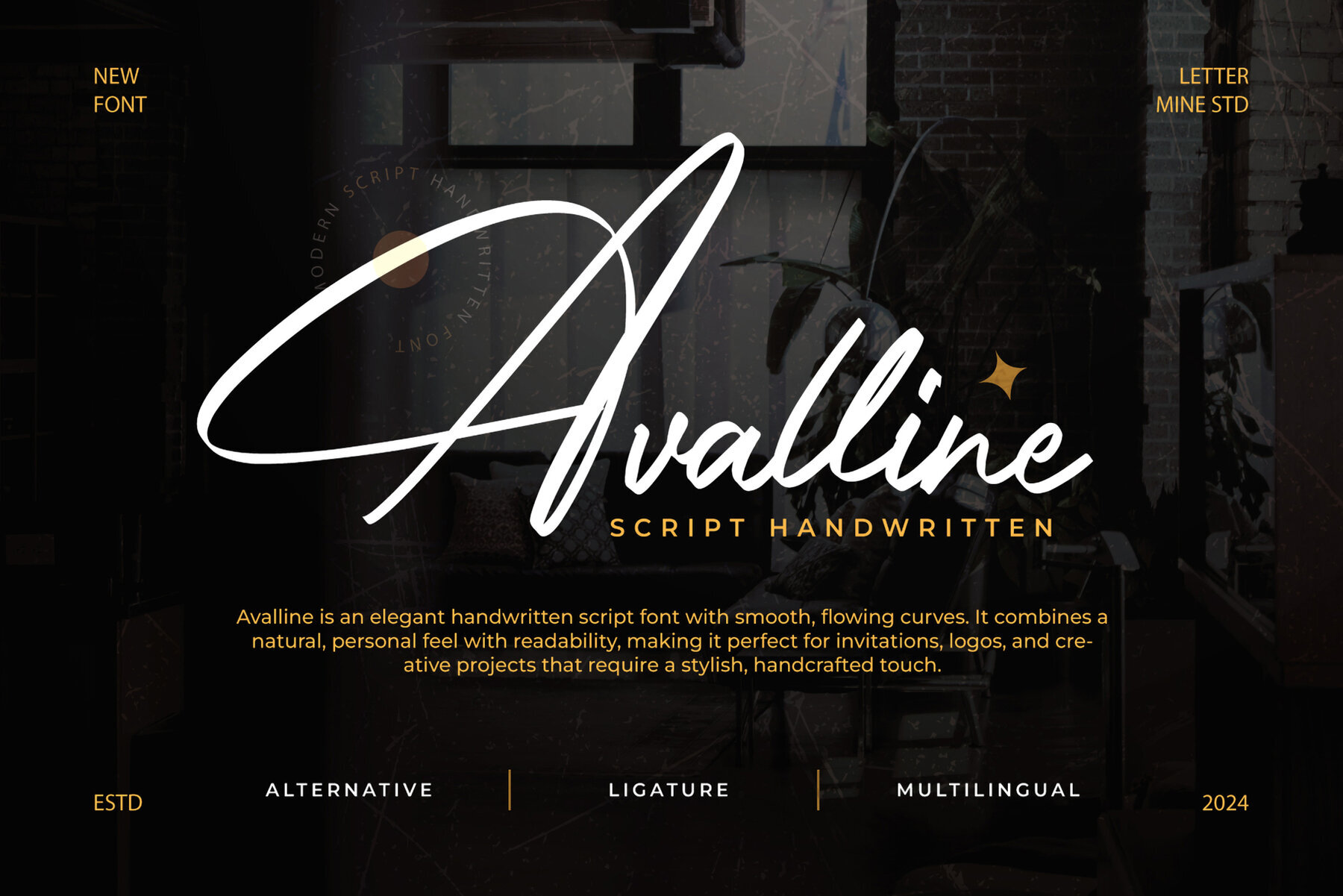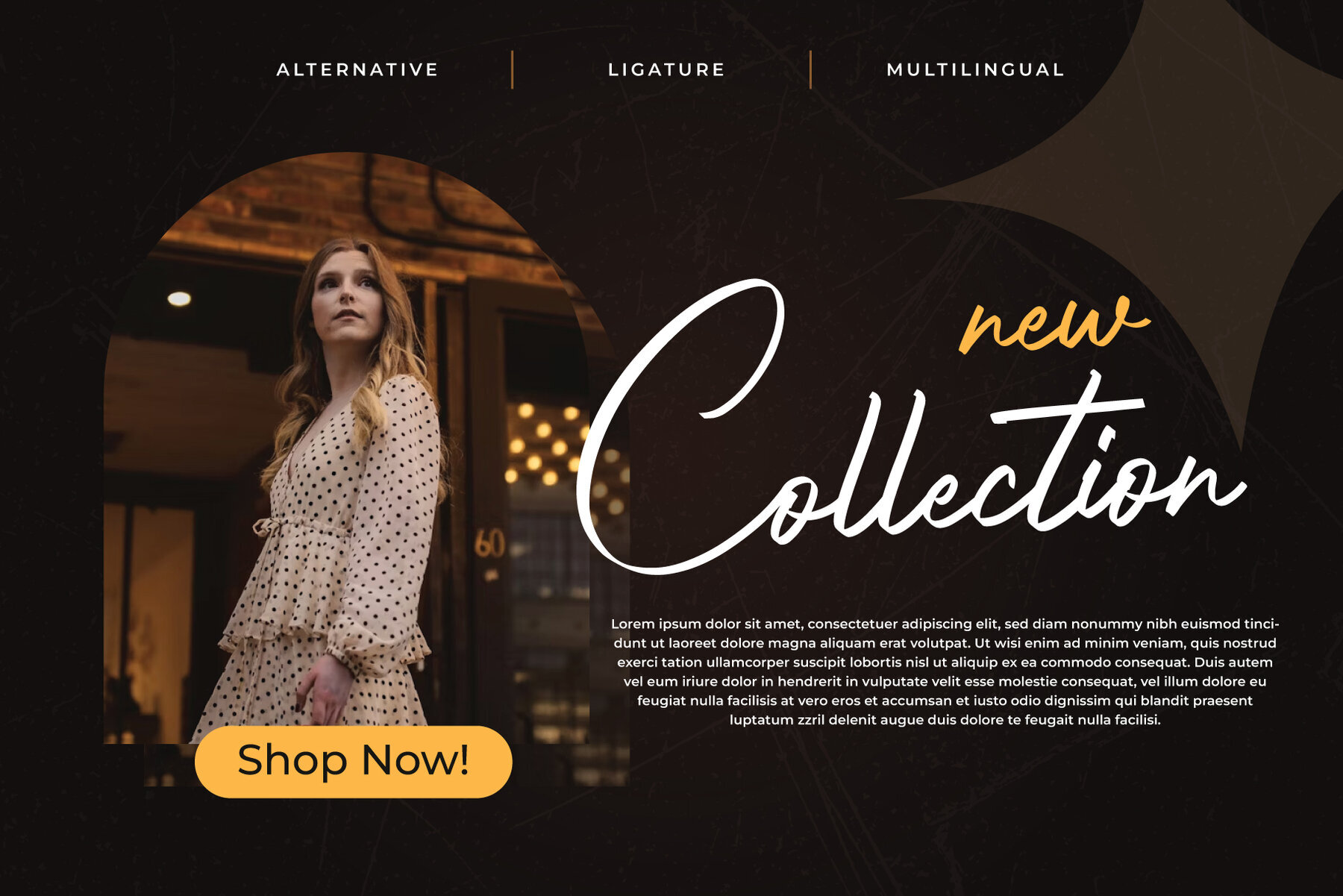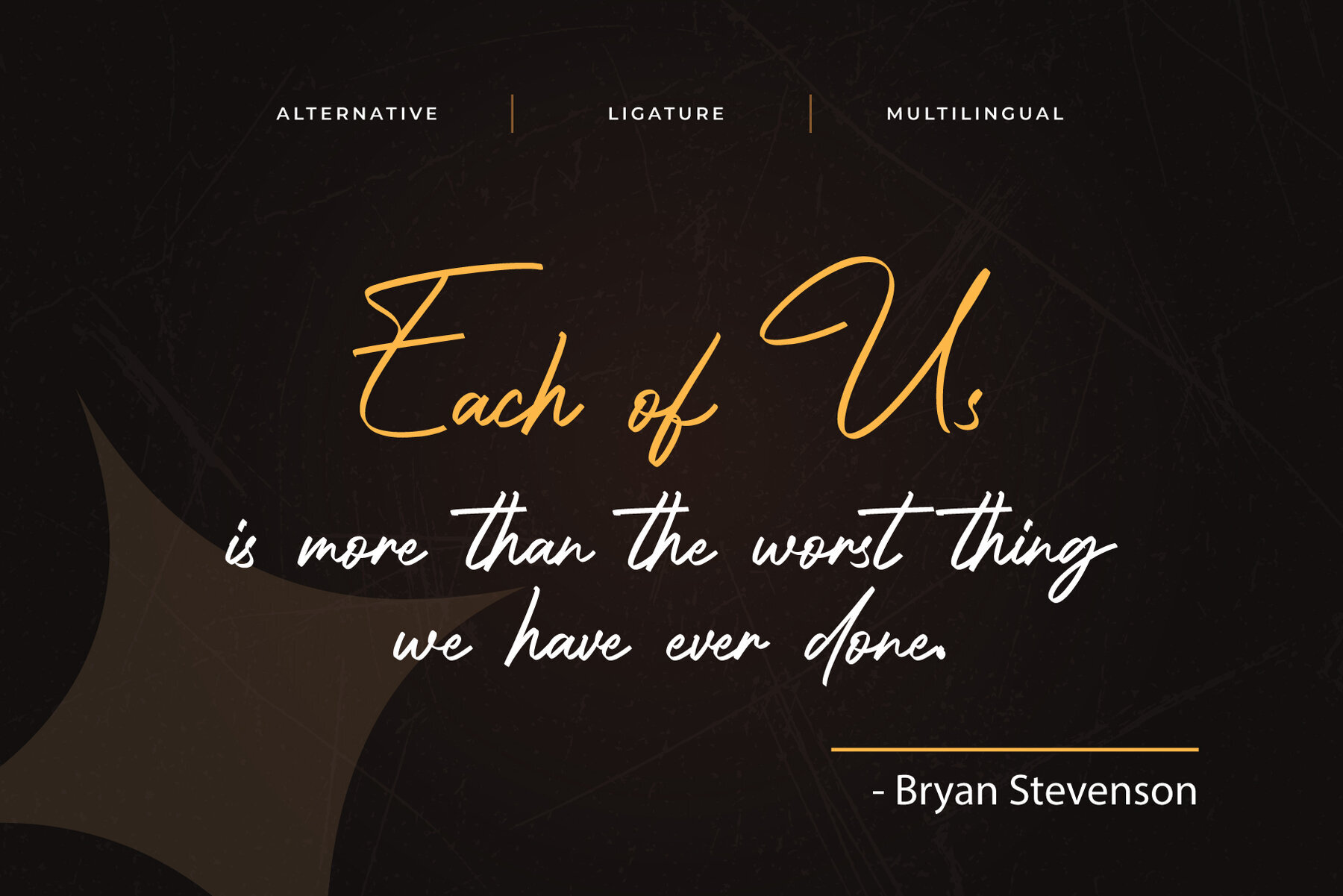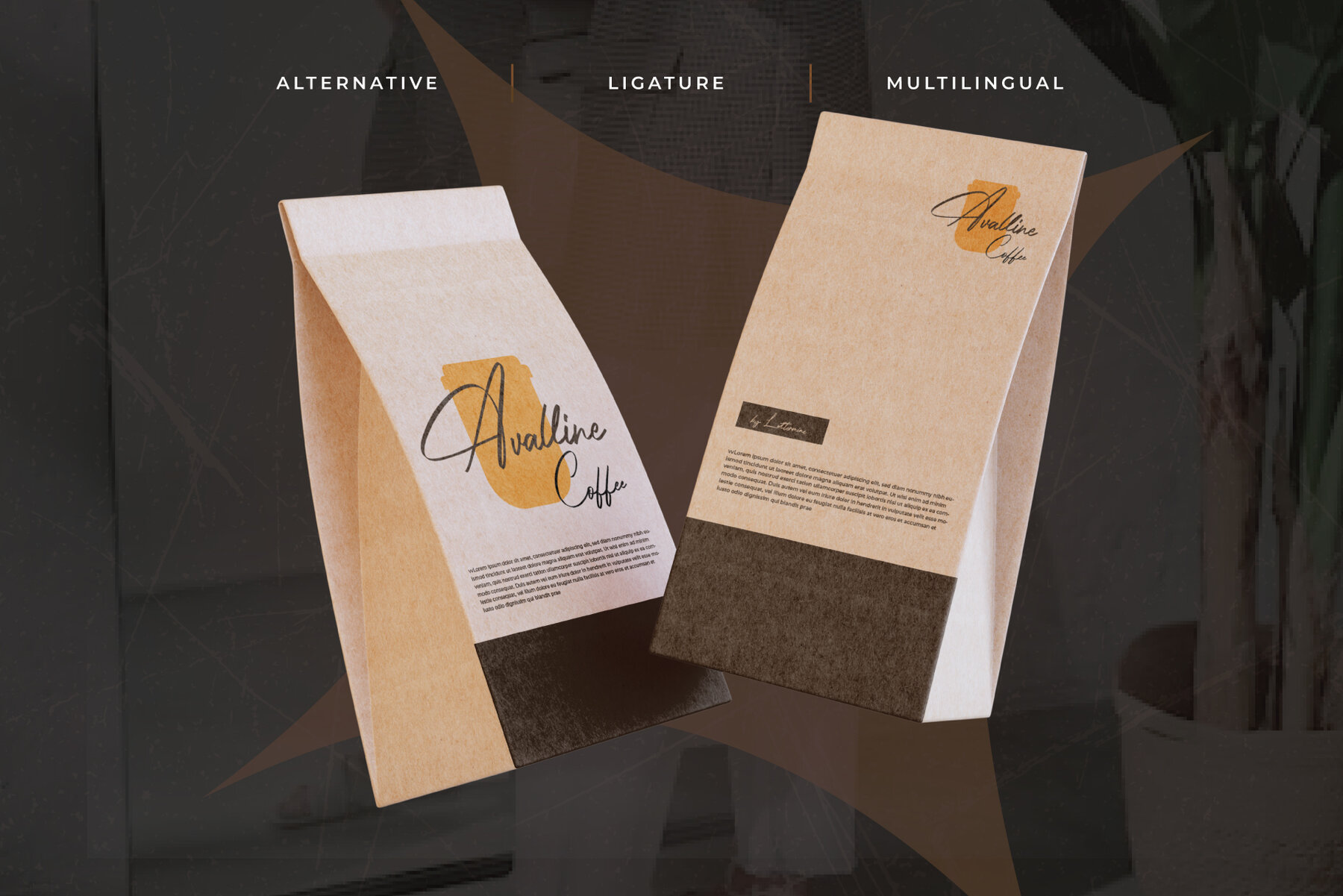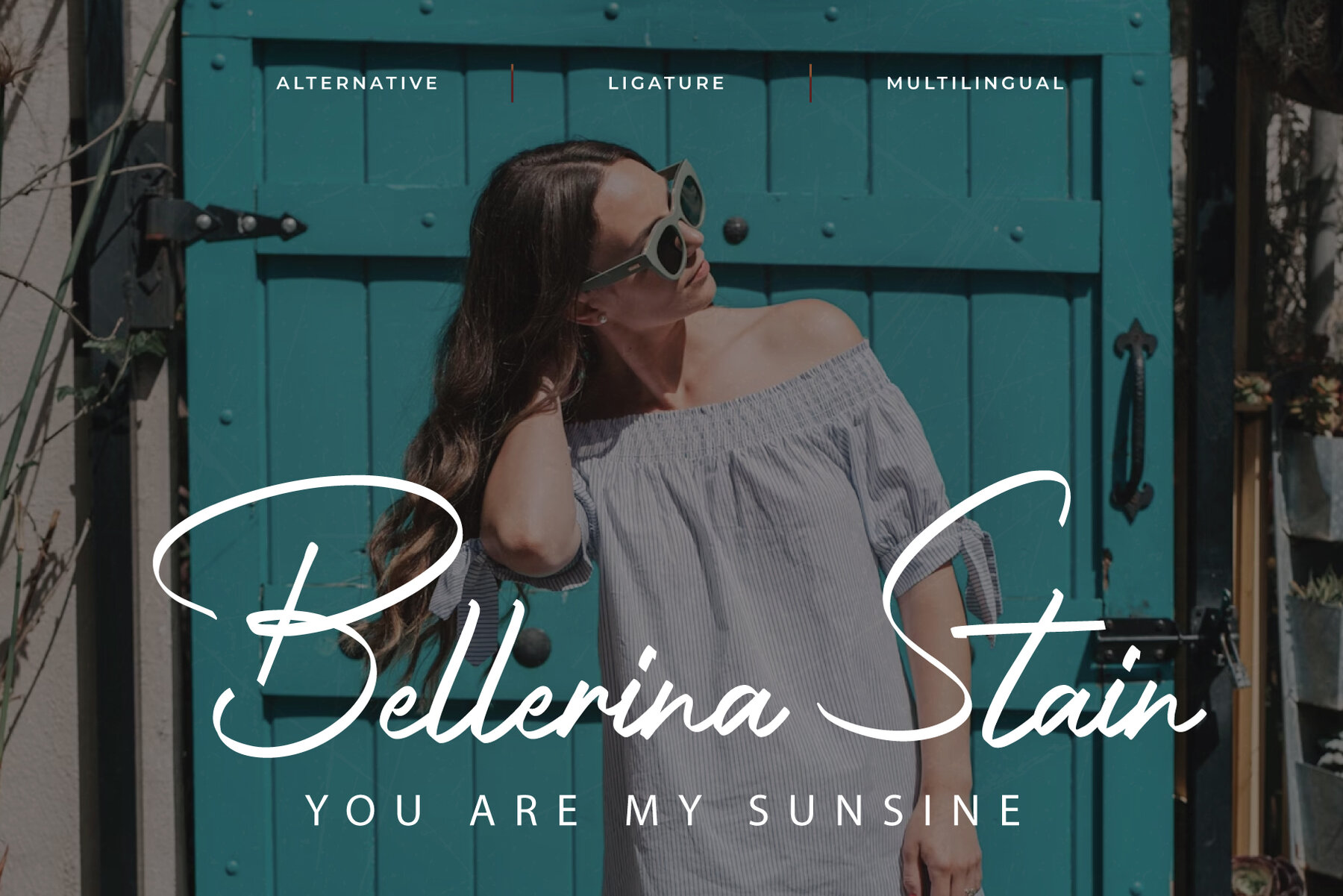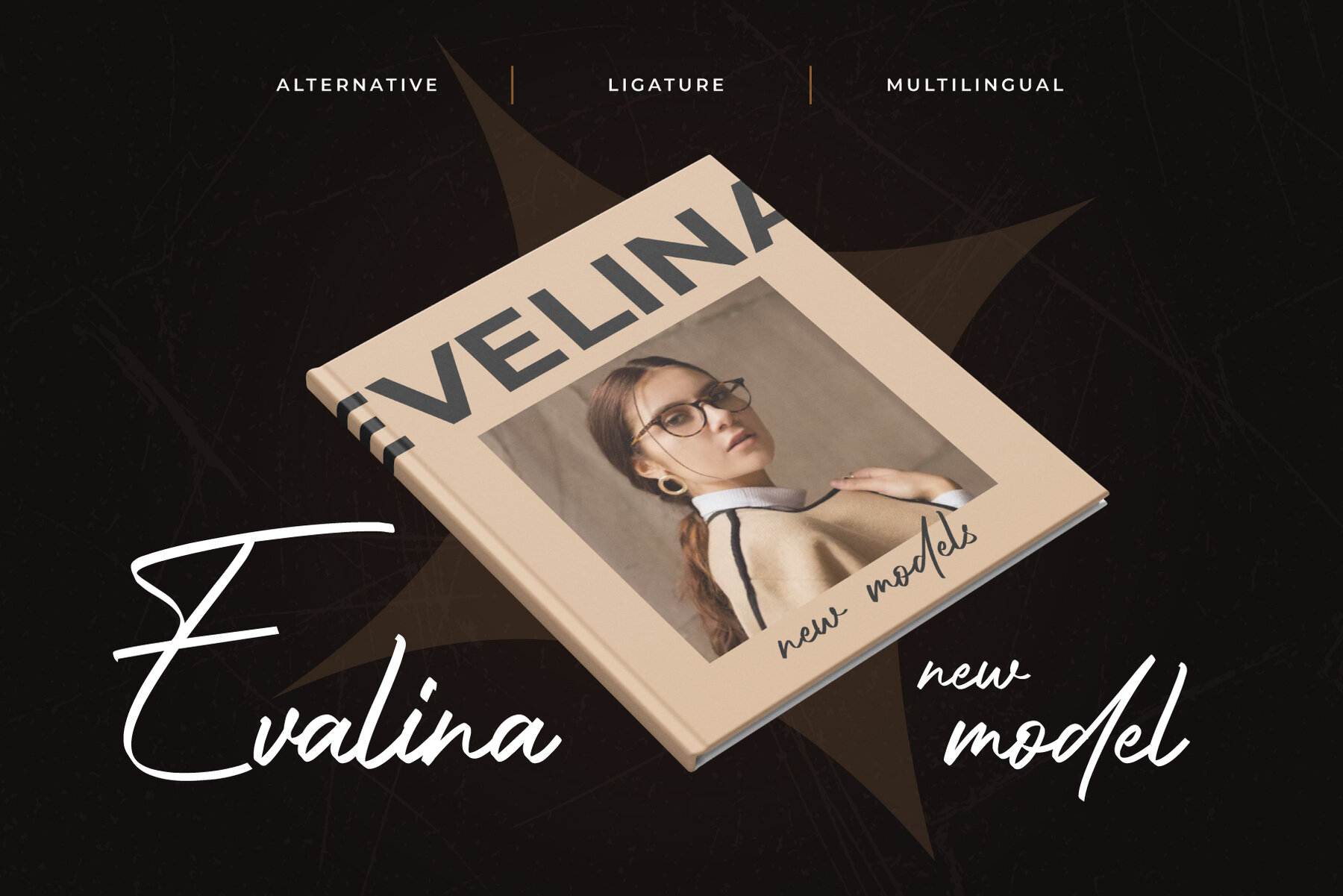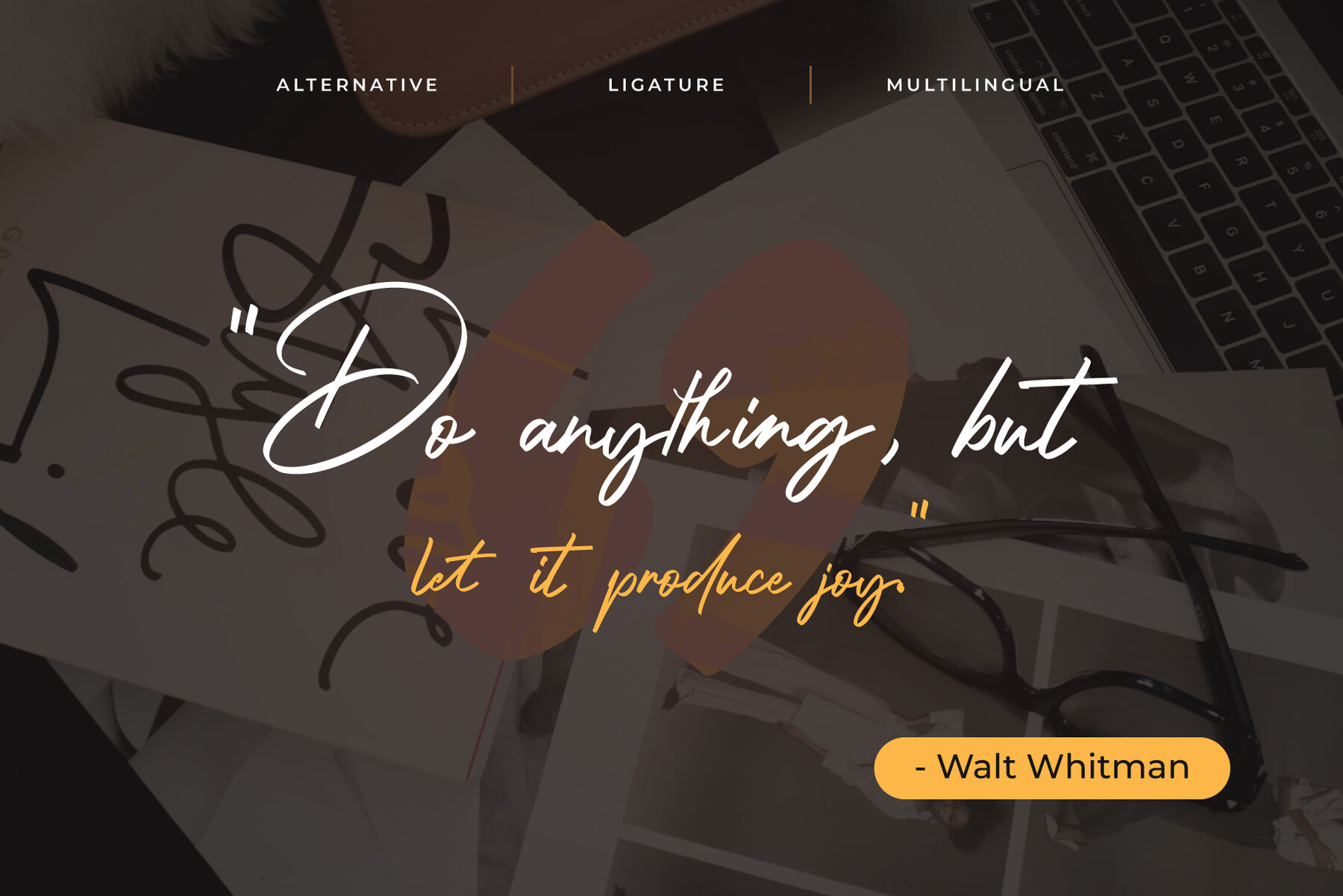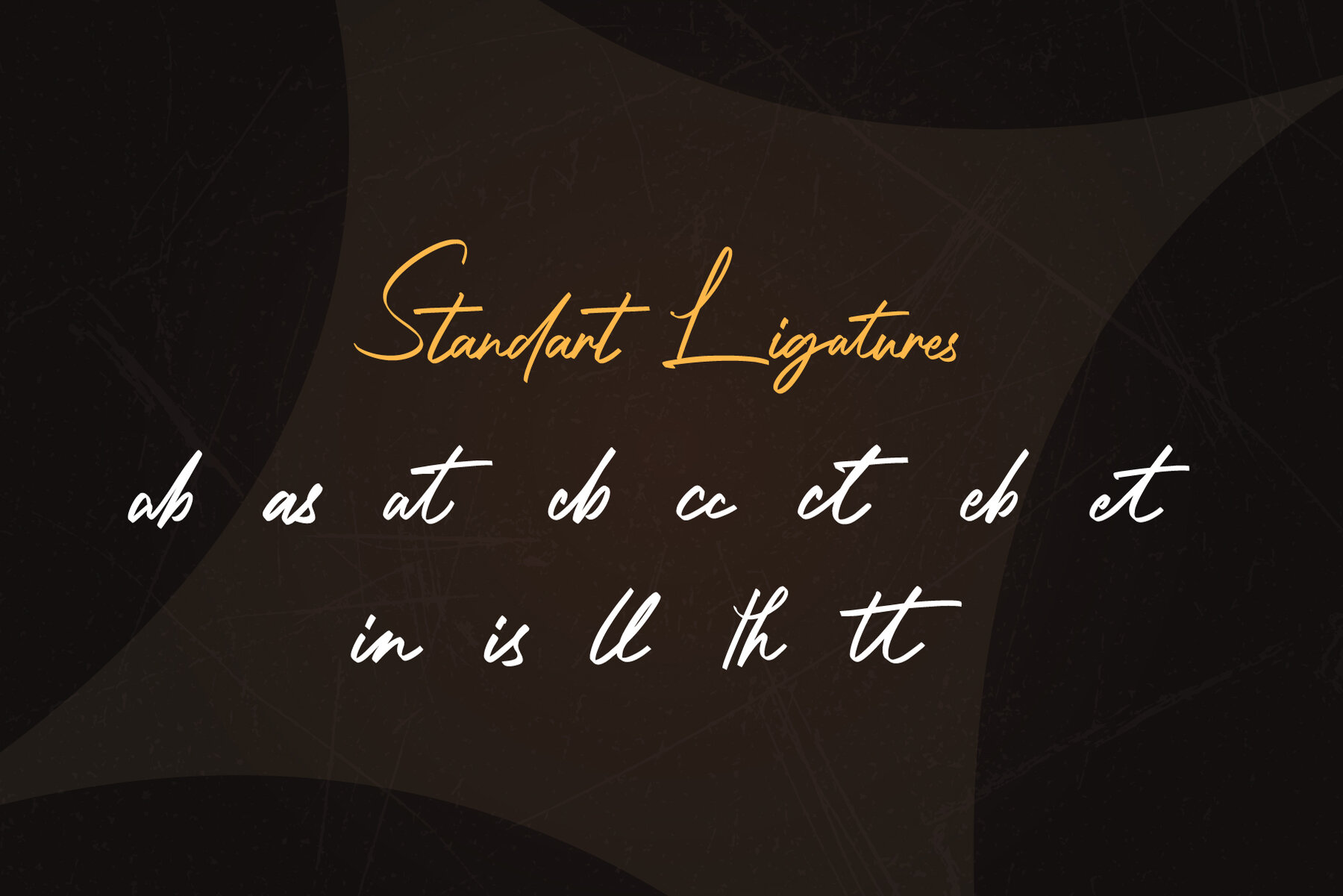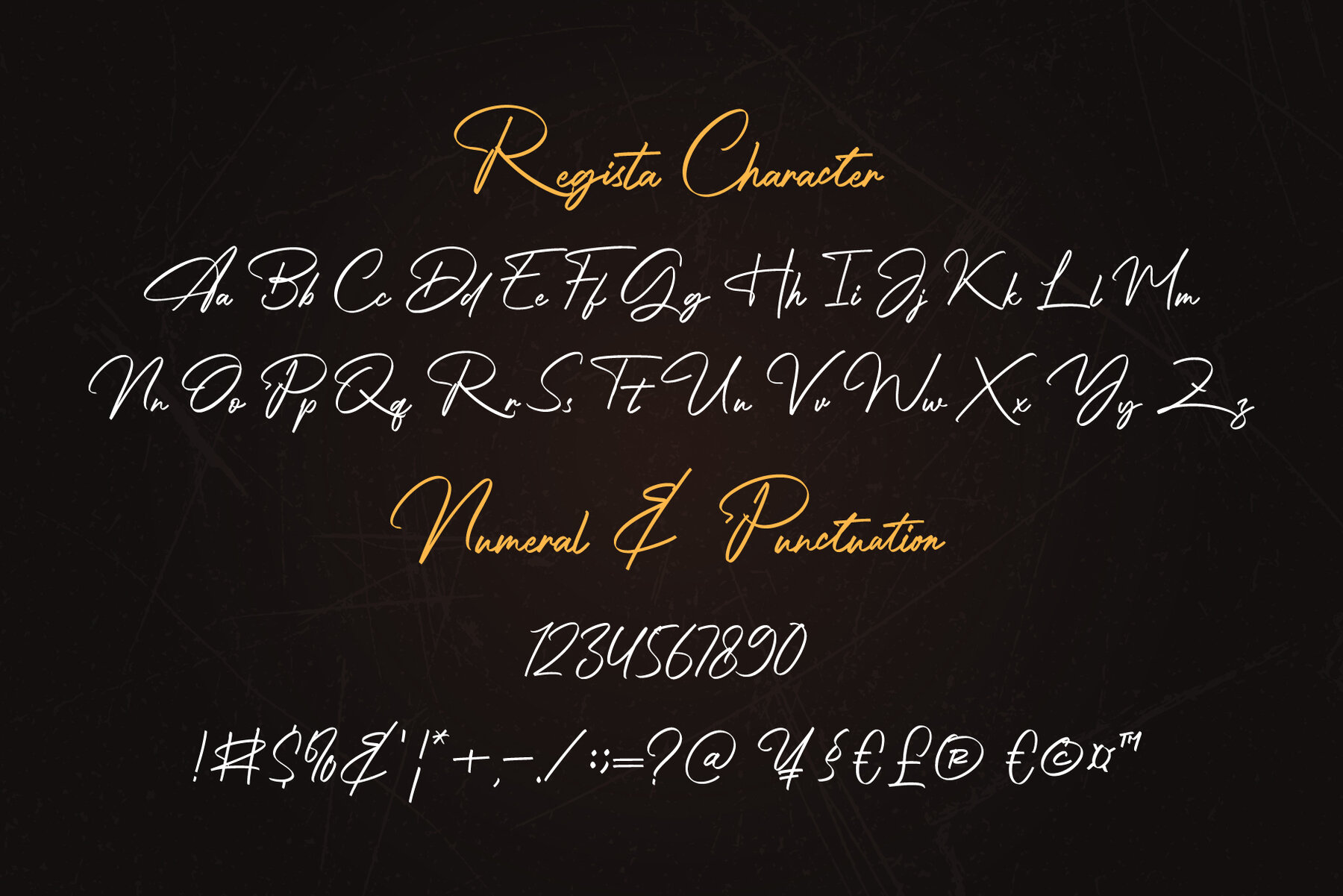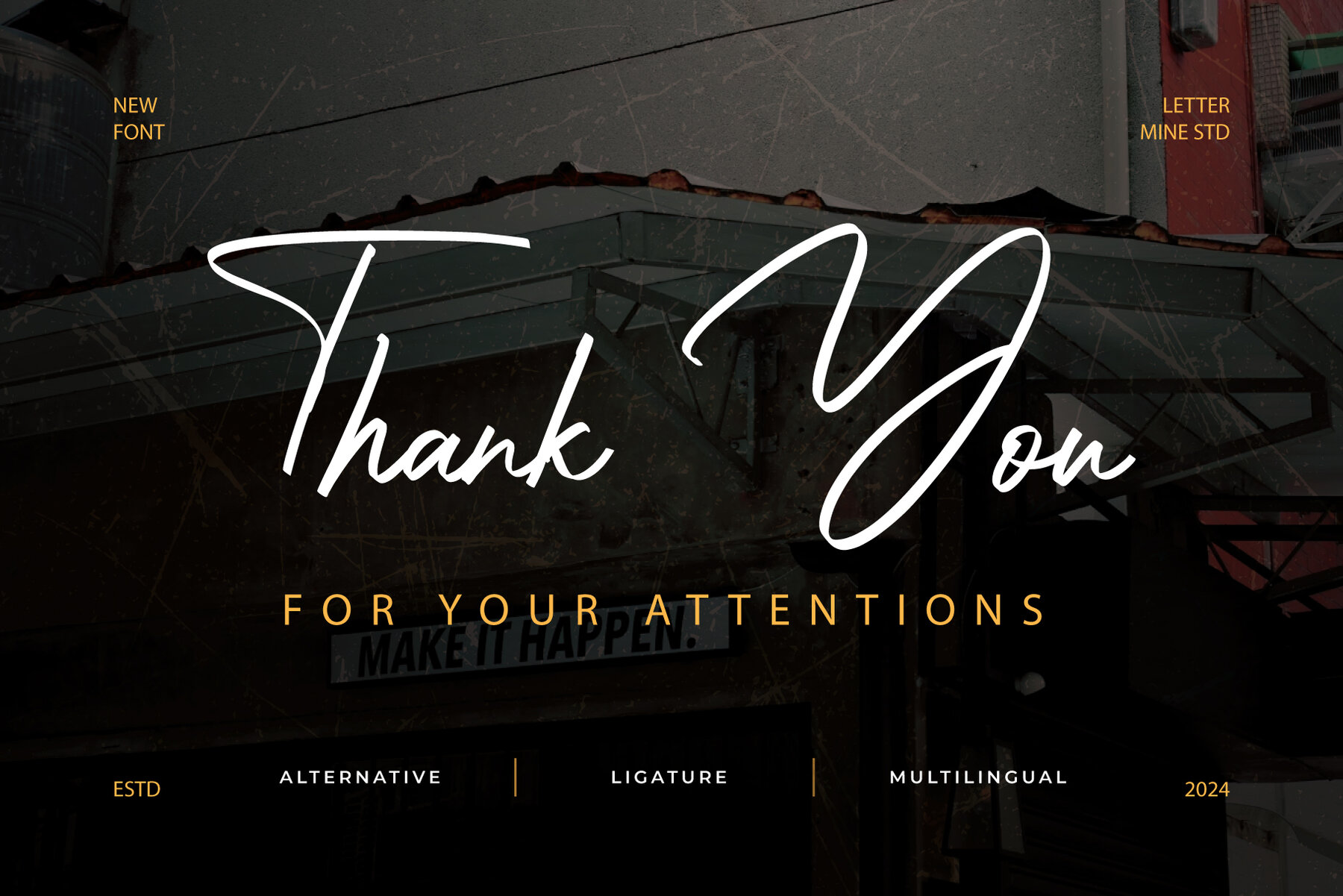
Avalline Font
Avalline Regular
Avalline is a graceful script handwritten font, bringing elegance and charm to any project. Characterized by its smooth, flowing strokes and hand-drawn texture, Avalline adds a personal and warm touch to your designs. Ideal for wedding invitations, logos, and social media graphics, its timeless style enhances projects with sophistication and creativity.
Key features of Avalline include ligatures, alternatives, punctuation, and multilingual support. This versatile font is perfect for designs that require a handwritten touch. Add warmth, elegance, and personality to your work with Avalline.